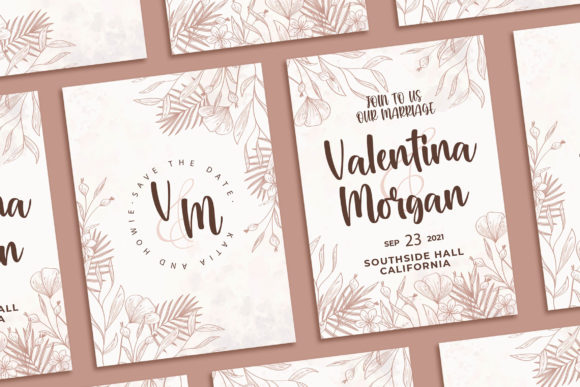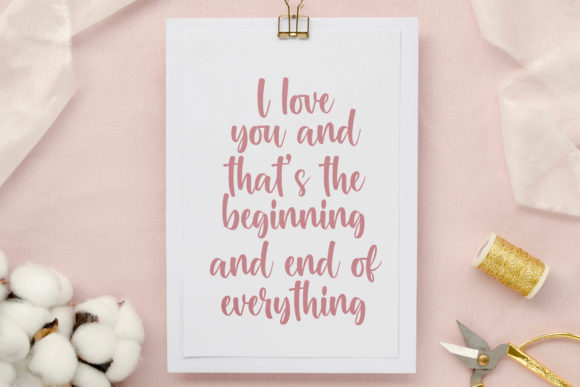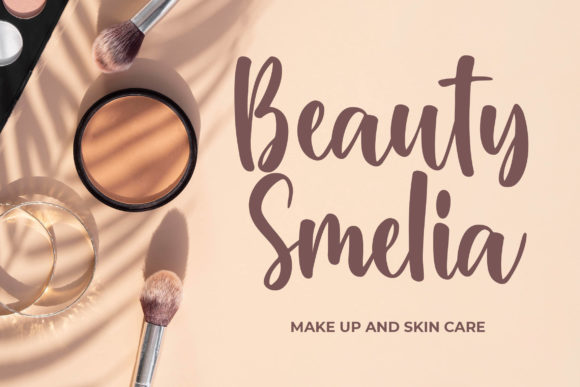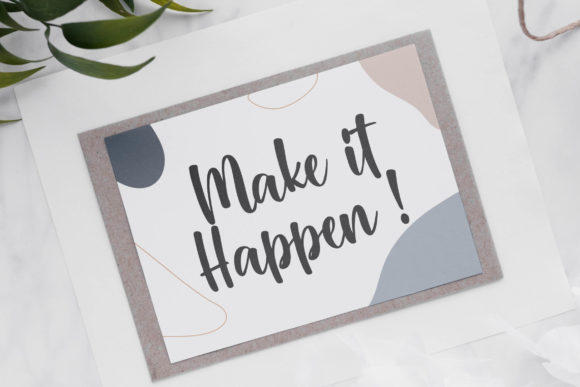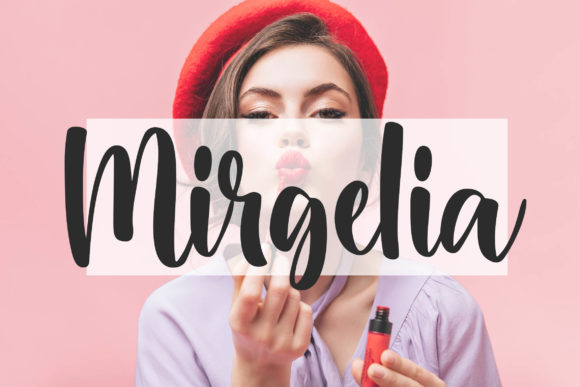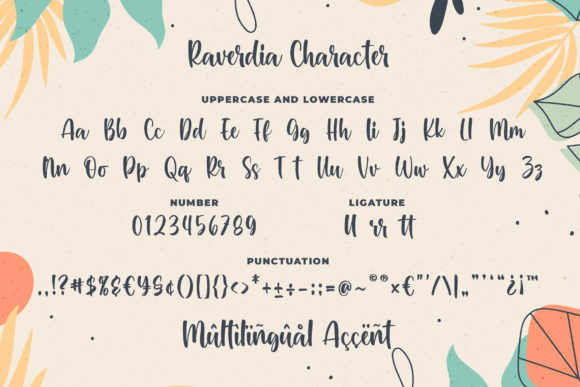
Introduction to Raverdia Font
Have you ever found yourself stuck in the middle of a creative project, desperately searching for the perfect font to bring your vision to life? It’s a feeling designers know all too well – one that can make or break the success of a project. But what if I told you there’s a font that can elevate any design, no matter the topic or theme?
Enter the enchanting Raverdia Font, a whimsical script font that exudes a relaxed charm and sophistication. With its lovely style and transparent background, this high-quality font is a design resource that’s sure to impress. And the best part? It’s available for a free download, making it an accessible asset for designers of all levels.
Whether you’re working on a creative project or simply looking to add a touch of personality to your designs, the Raverdia Font is an invaluable addition to any designer’s library.
Key Features of Raverdia Font
- High-quality design: Raverdia Font is a premium font that offers crisp and clear typography, making it perfect for creative projects.
- Transparent background: This font features a transparent background, allowing designers to easily layer it over any image or color.
- Resolution-independent: Raverdia Font is designed to be resolution-independent, ensuring that it looks great at any size or resolution, from small text to large headings.
- Unique characteristics: The font features a unique blend of modern and futuristic elements, making it perfect for designers who want to add a touch of innovation to their creative project.
- Perfect for digital use: With its high-quality design and transparent background, Raverdia Font is ideal for use in digital projects, such as website headers, social media graphics, and more.
Honest Review: Raverdia Font
I recently had the chance to work with the Raverdia Font, and I must say it’s been a game-changer for my creative projects. The high quality of this font is evident in its crisp lines and modern aesthetic.
- ✨ Unique style: Raverdia Font offers a distinctive look that sets it apart from other fonts in its category.
- ✨ Versatility: This font can be used for a wide range of creative projects, from logos and branding to digital art and design.
- ⚠️ Limited language support: Unfortunately, the Raverdia Font only supports a limited number of languages, which may be a drawback for designers working on international projects.
- ⚠️ No transparent background option: While the font itself is high quality, the lack of a transparent background option can make it difficult to use in certain design scenarios.
Overall, I’m impressed with the Raverdia Font and would recommend it to designers looking for a unique and high-quality design resource. Its free download option and versatility make it an excellent choice for creative projects.
Raverdia Font
The Raverdia Font is a high-quality, free download perfect for any creative project that requires a unique and modern touch. With its transparent background, this font is ideal for designers looking to add a sleek and sophisticated look to their designs.
Tips for Getting the Most Out of Raverdia Font
To get the most out of the Raverdia Font, experiment with different font sizes, colors, and styles to find the perfect combination for your design. You can also use the font in conjunction with other design elements, such as graphics and images, to create a unique and eye-catching look.
Common Use Cases for Raverdia Font
The Raverdia Font is perfect for a variety of design projects, including social media graphics, flyers, posters, and business cards. Its modern and sophisticated look makes it ideal for any creative project that requires a high-quality and professional design.